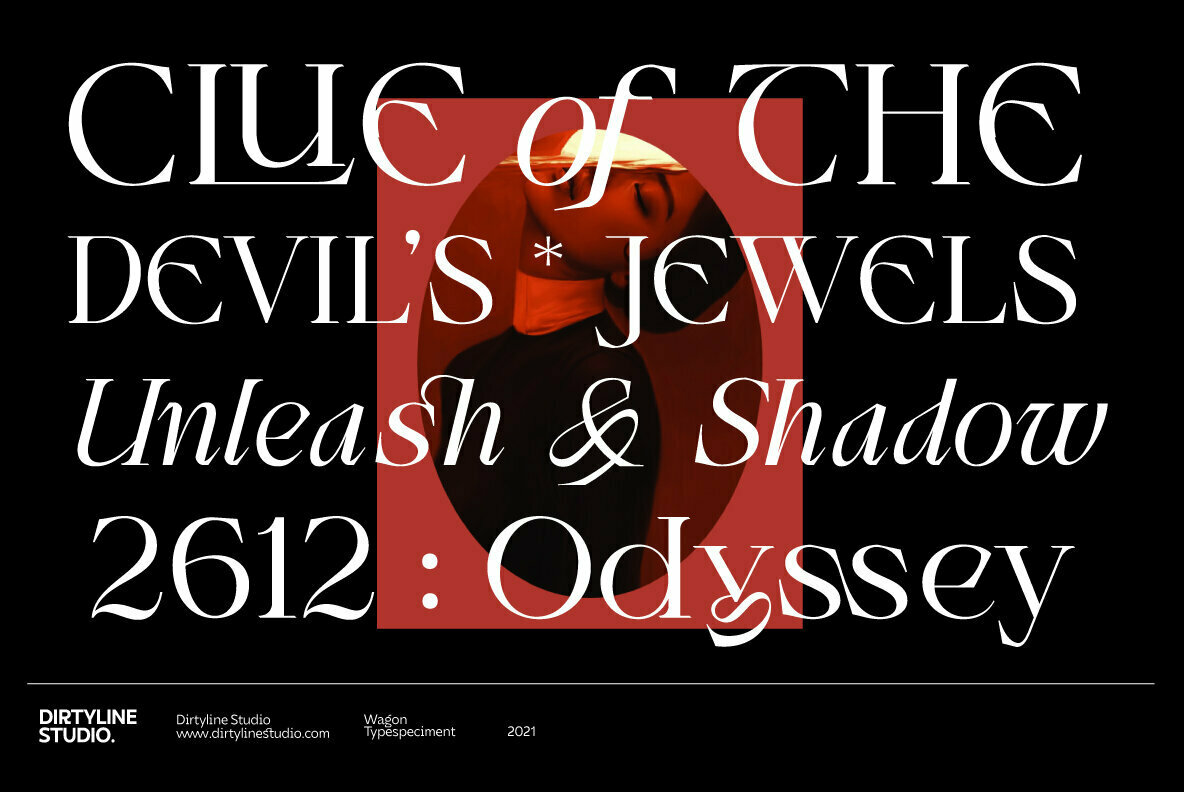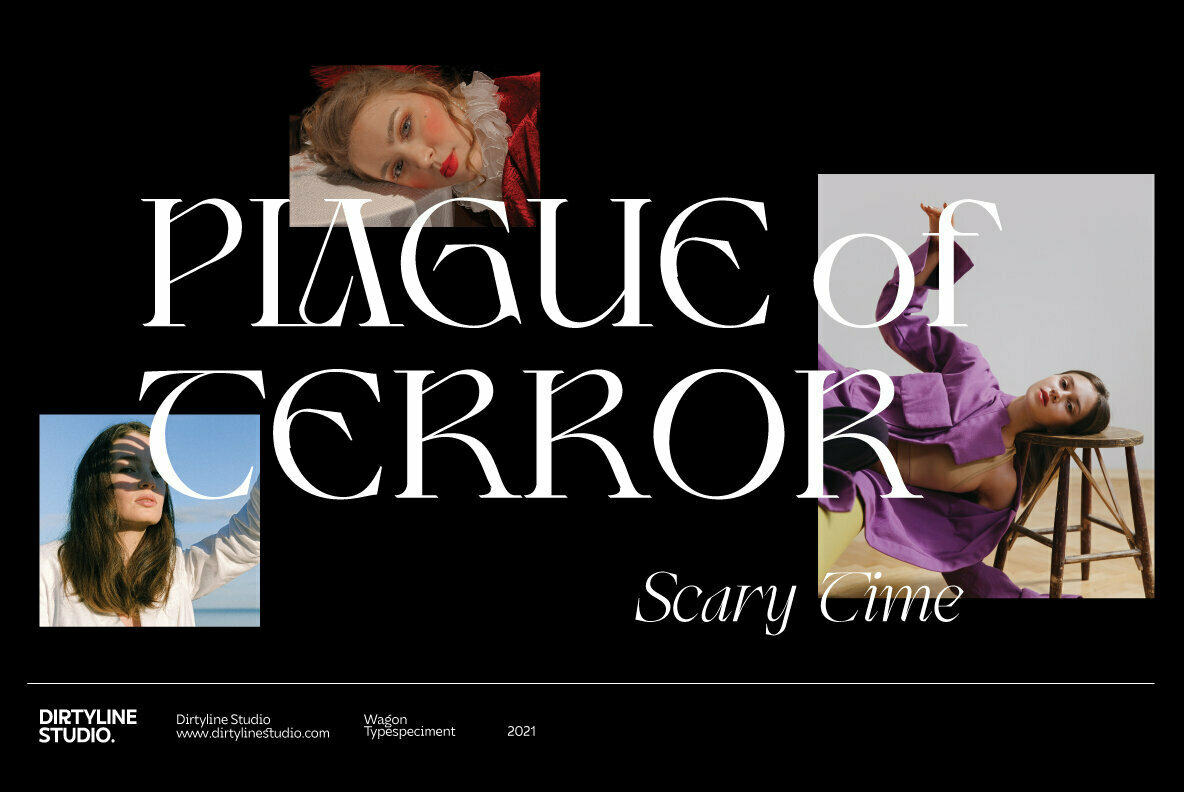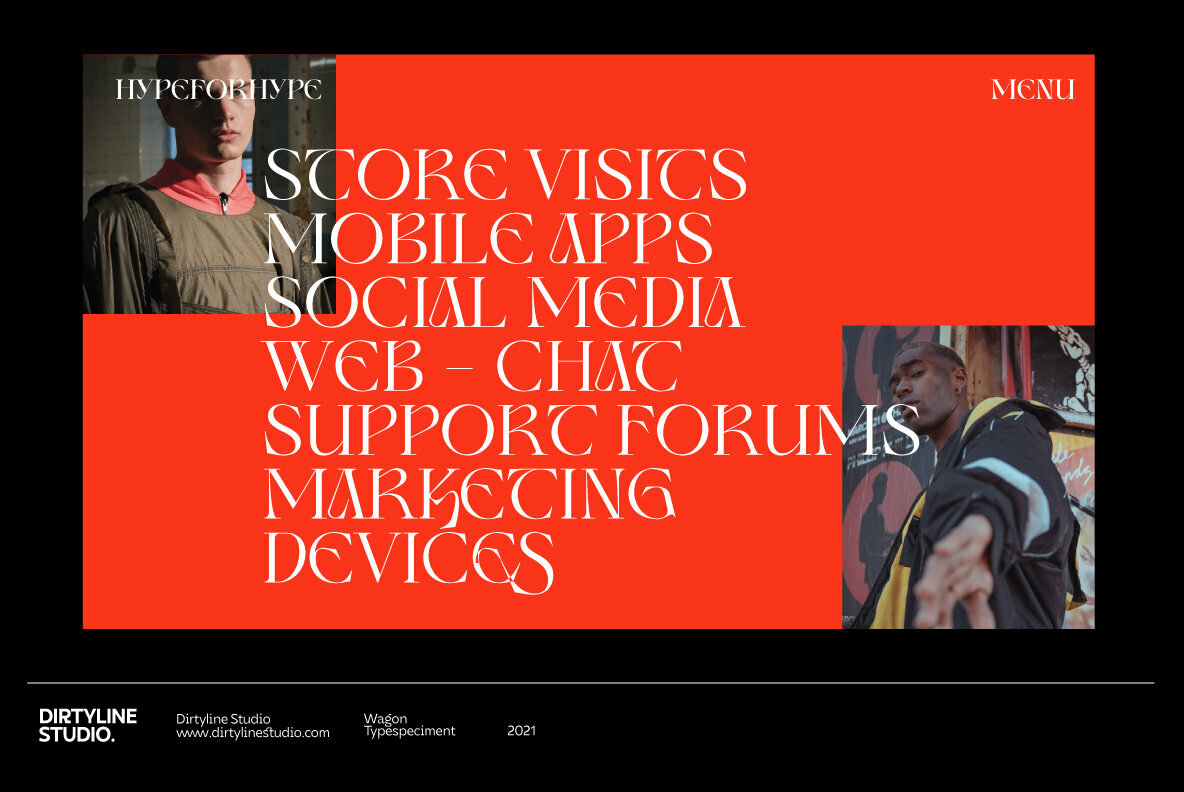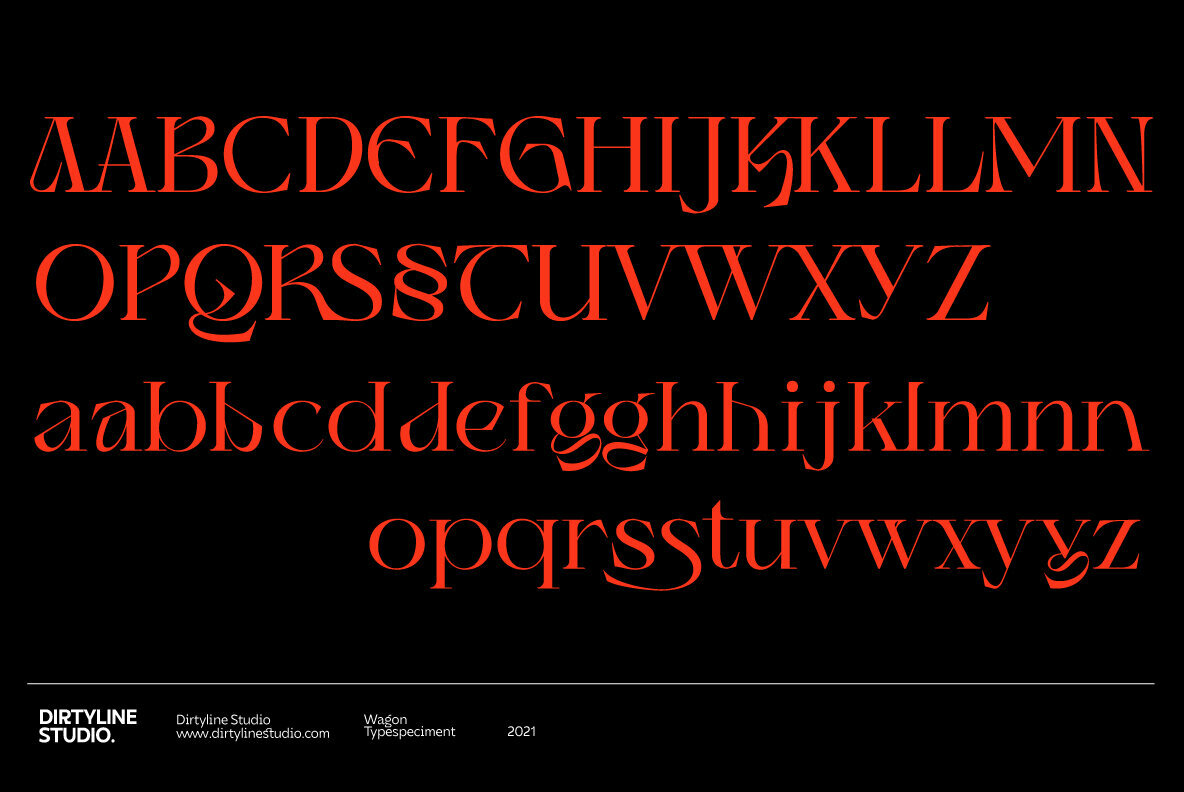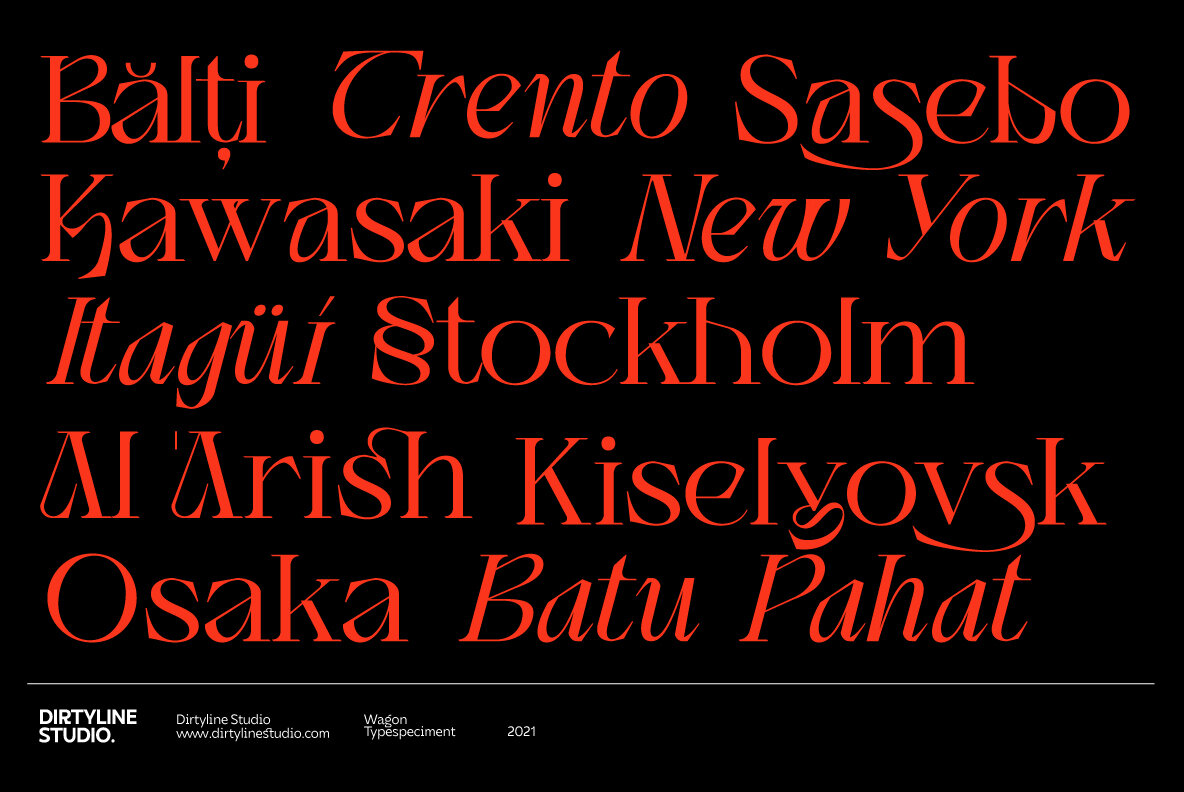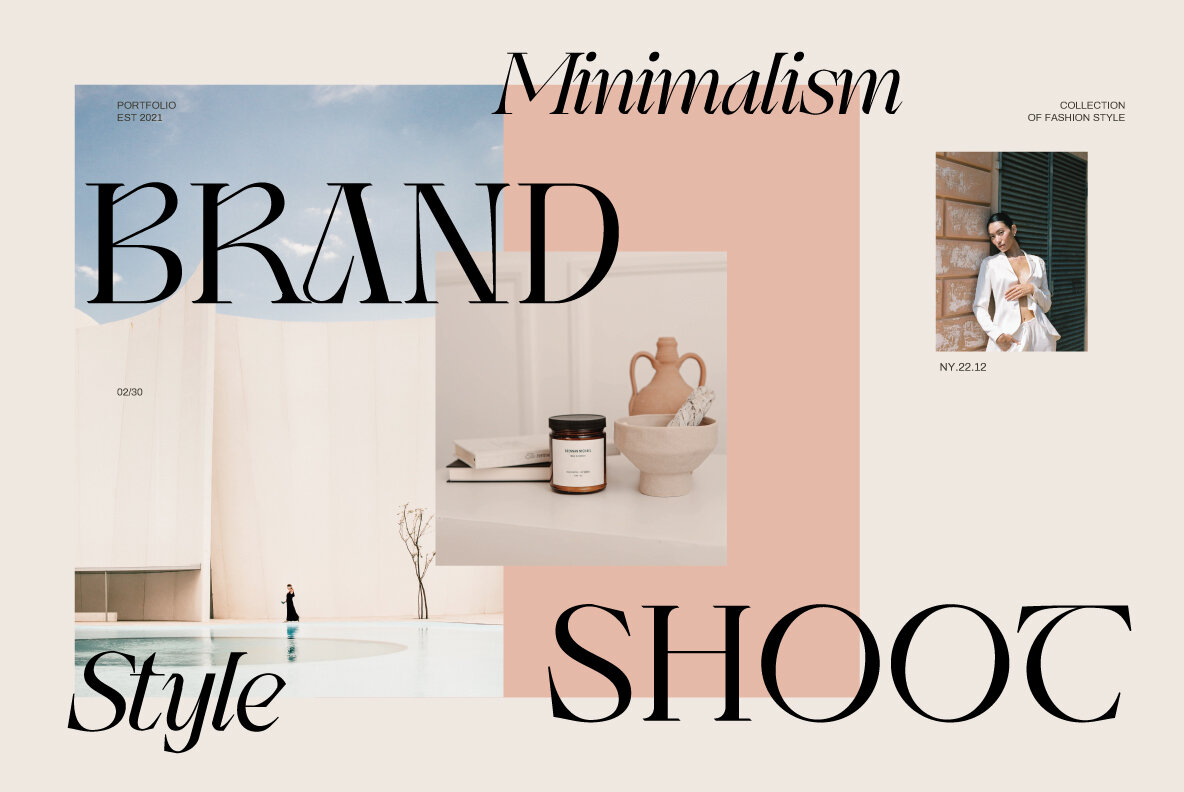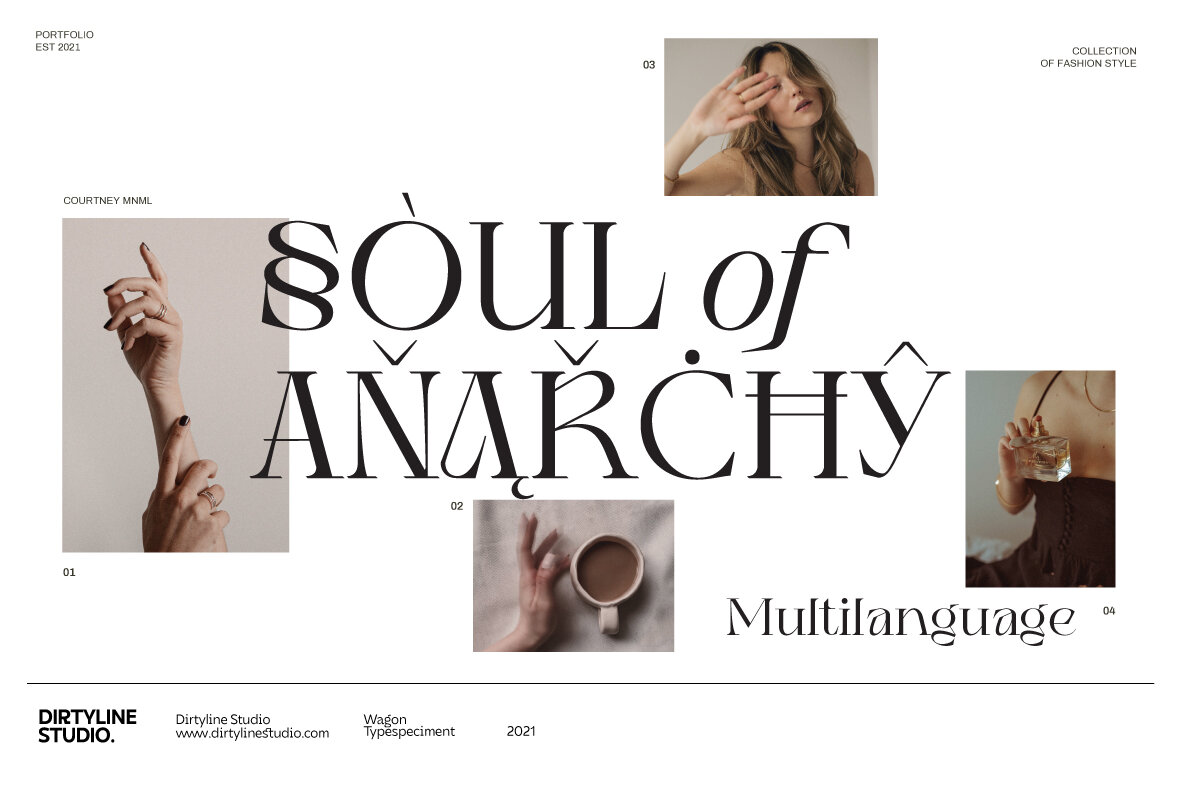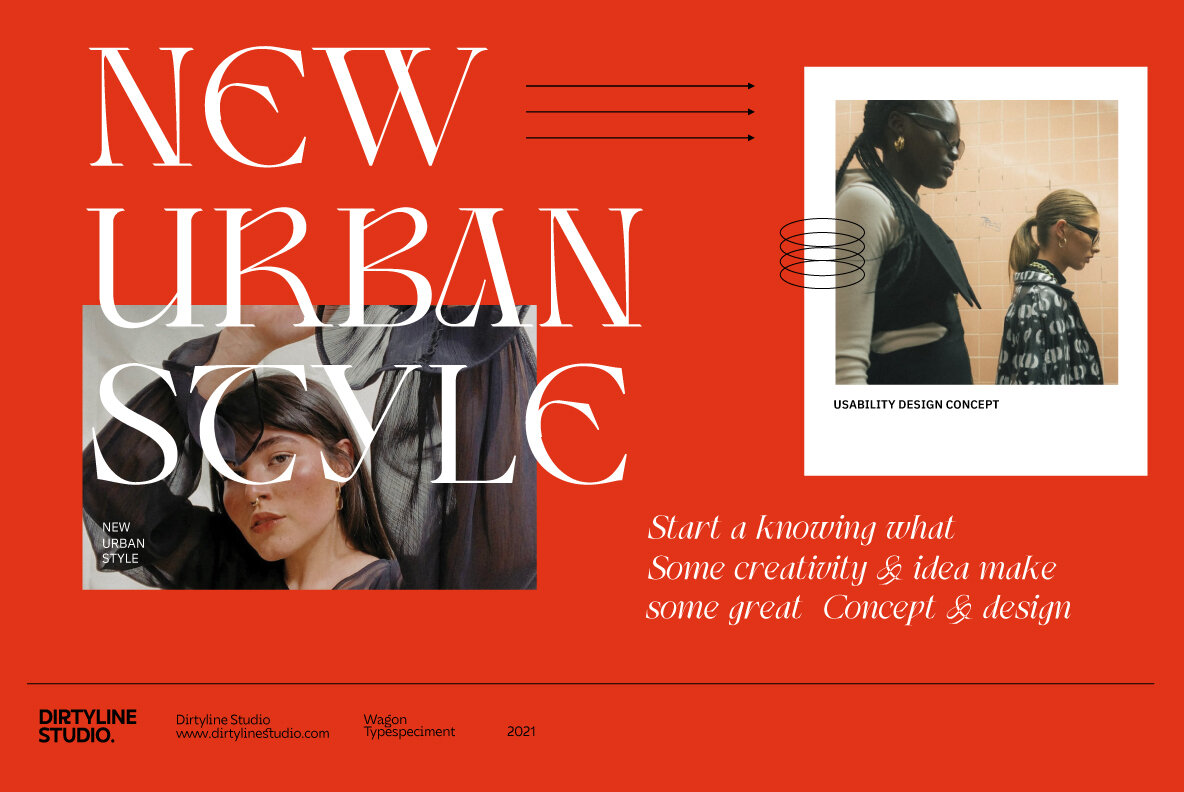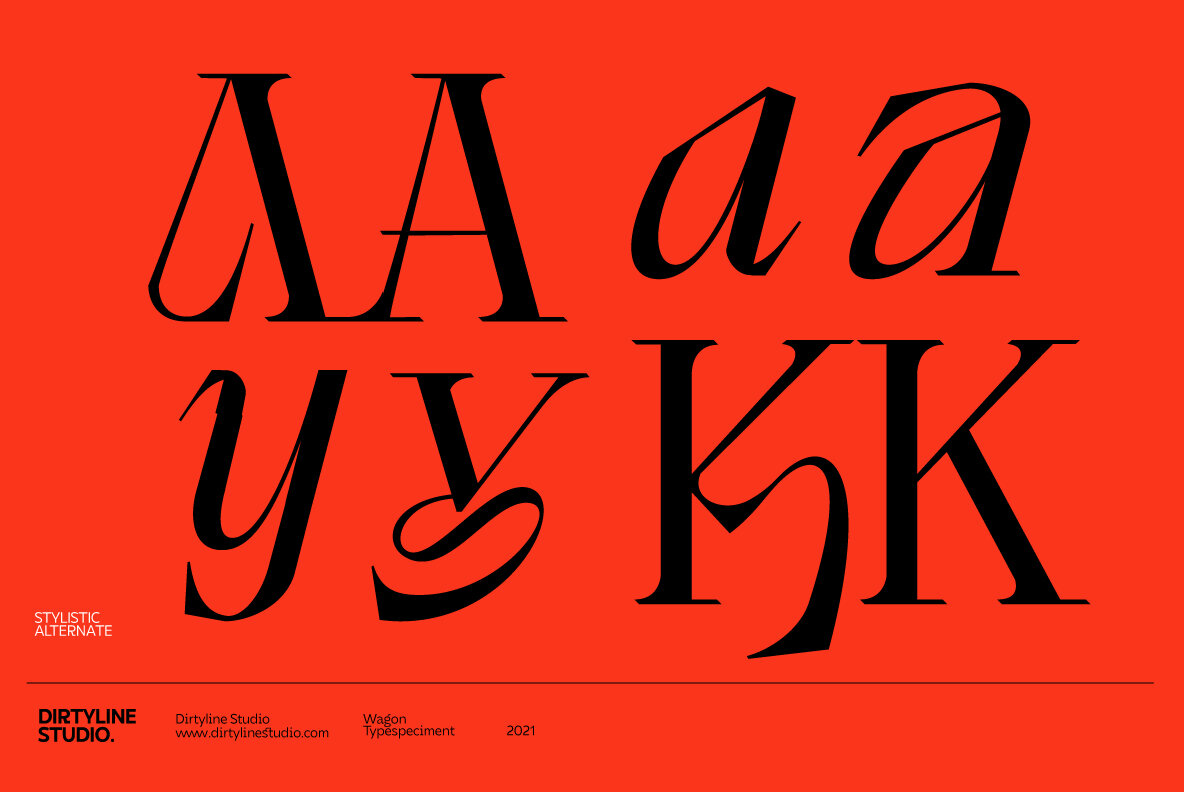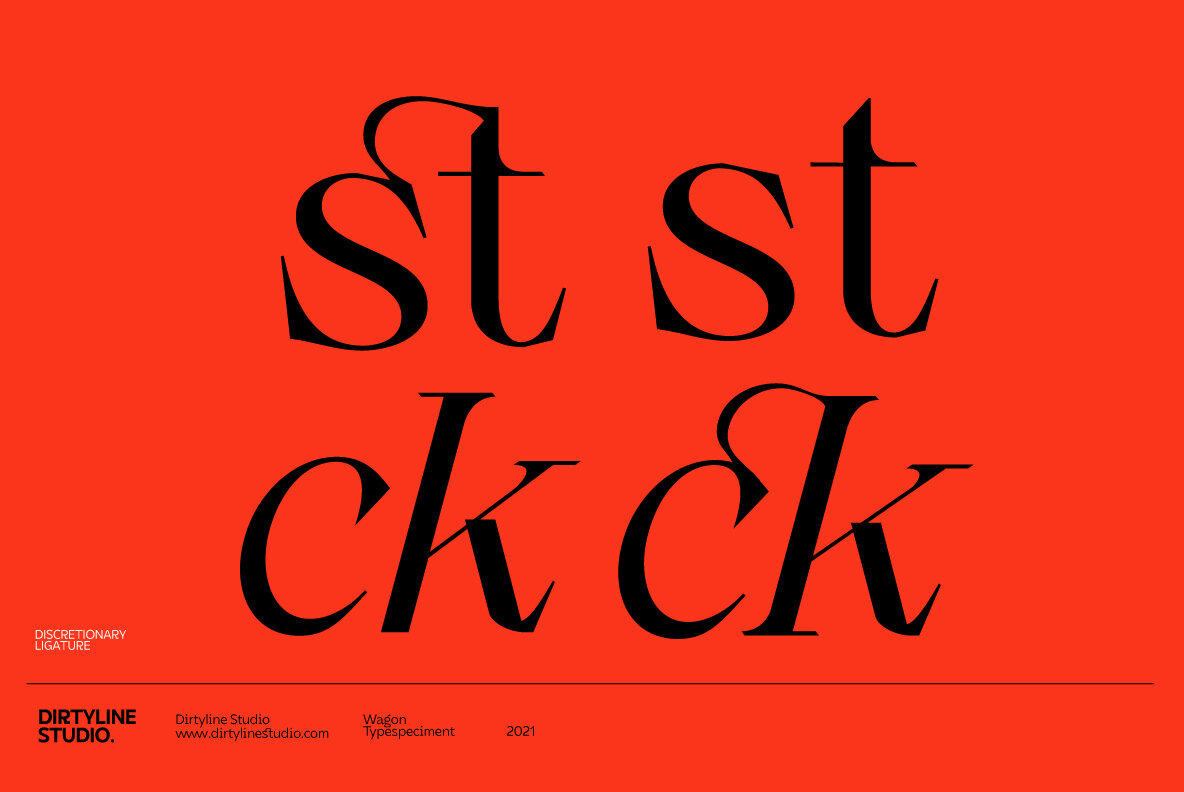
Wagon Font
Wagon by Dirtyline Studio is an integral part of an assertive and contemporary display family. Its utility is apparent both in striking large formats and comfortably readable small text. The sharp edges of its triangular serifs and unique letter structures are ideal for creating memorable logos and compelling editorial pieces. Wagon's design incorporates an elegant style with contrasting elements, featuring an extensive Latin character set of 415 glyphs and supporting over 87 languages. This typeface is poised to elevate your projects with a balance of classical allure and contemporary edge, akin to the refined aesthetics of luxury fashion.Wagon: A Robust Display Typeface for Modern Design